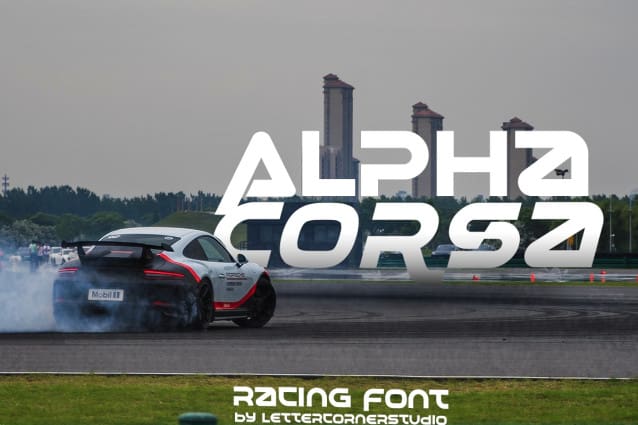
Alphacorsa Font
Alphacorsa Font is a modern and chic typeface, best used as a display for headings, logos, branding, magazines, product packaging and invitations. Alphacorsa come with clean lines and smooth curves give any project an extra touch of class.